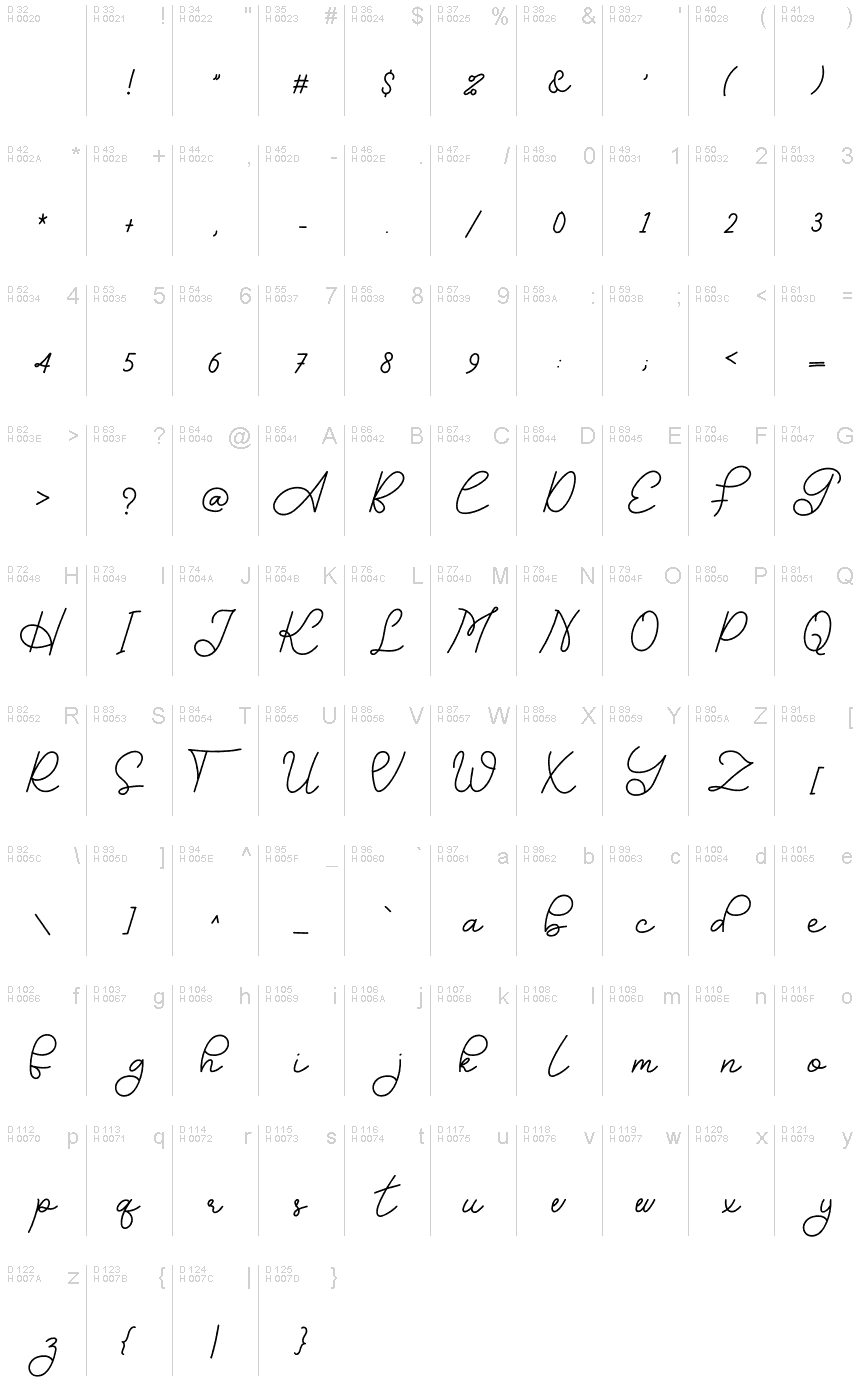
Antique
Antique is a beautiful and refined signature script font designed by Luluk Surotul. It has a classy, elegant, and modern look that can be used for logos, branding, invitations, stationery, wedding designs, social media posts, and much more!